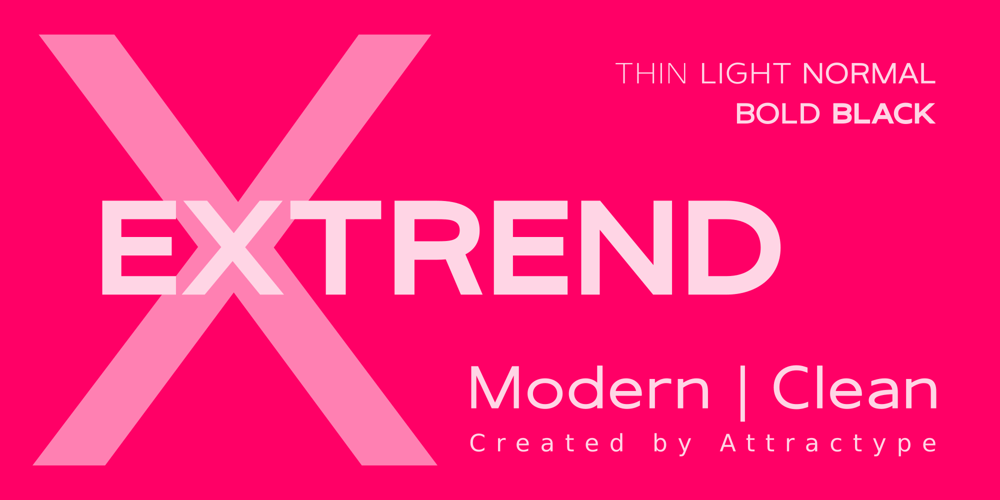
Extrend Font Family was designed by Saefulloh and published by Attractype. Extrend contains 5 styles and family package options. Extrend, a clean and modern sans serif typeface, ideal for text that requires more space. suitable for corporate use as well as corporate branding and identity design, magazines, books, comics.With five styles, Extrend can be used to make your creative projects more interesting.